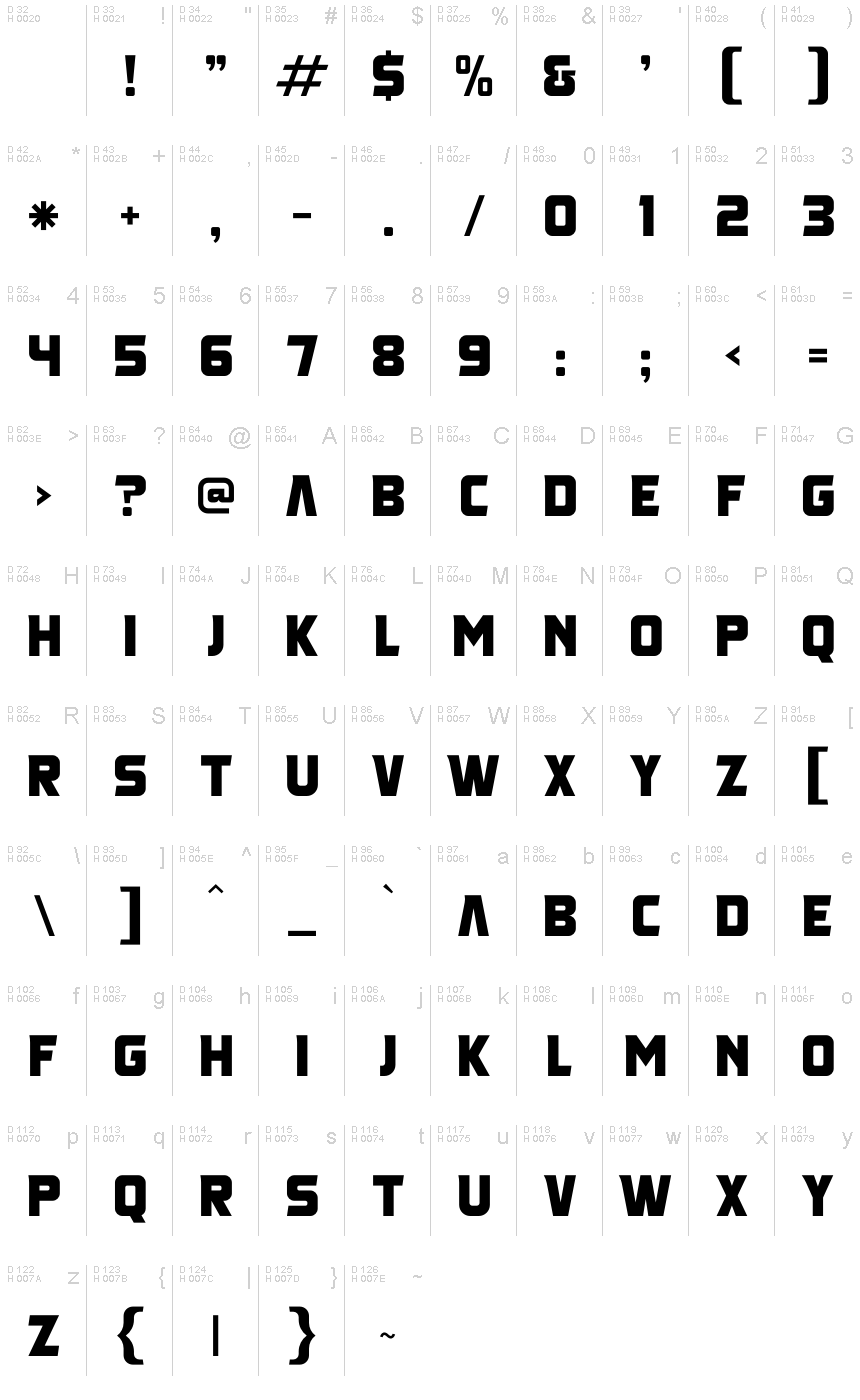
Caverson
Bold and distinctive, the Caverson font is a powerful typeface from Storytype Studio. The strokes are commanding with sharp-angled edges which make it impossible to ignore these fonts as they appear in bold print.
The typeface easily captures one’s attention thus creating an impression of power and firmness hence making it ideal for impactful designs.
Caverson’s versatility makes it suit different areas including eye-catching logos and striking headlines, dynamic editorial layouts, and strong branding materials. This strong appearance can be applied where a loud confident tone is required for corporate identities, product packaging etc.